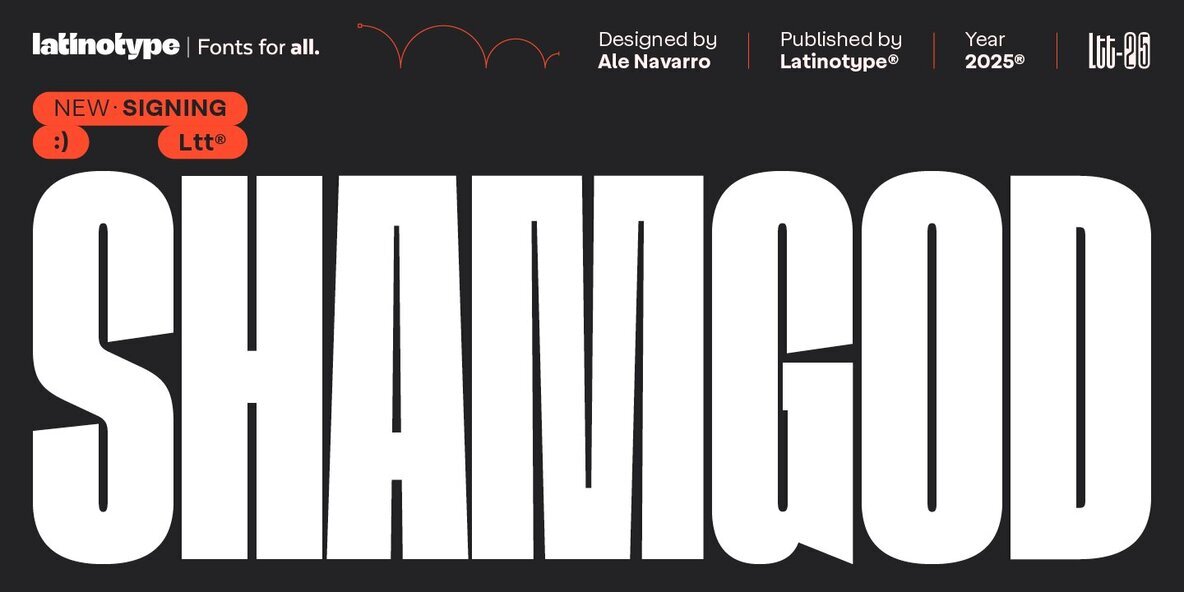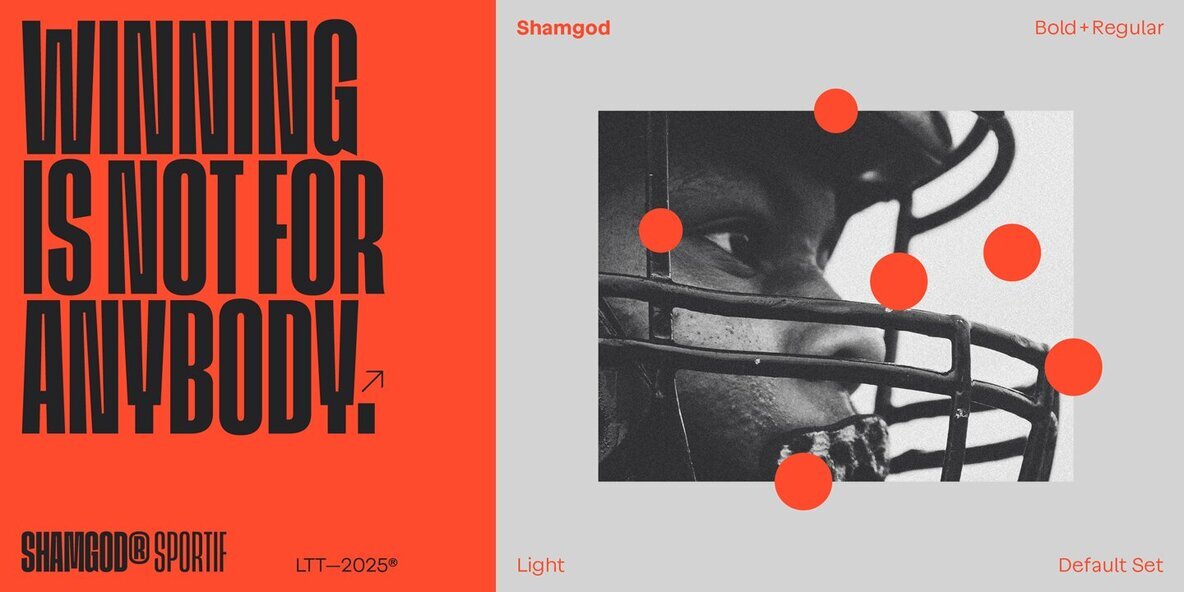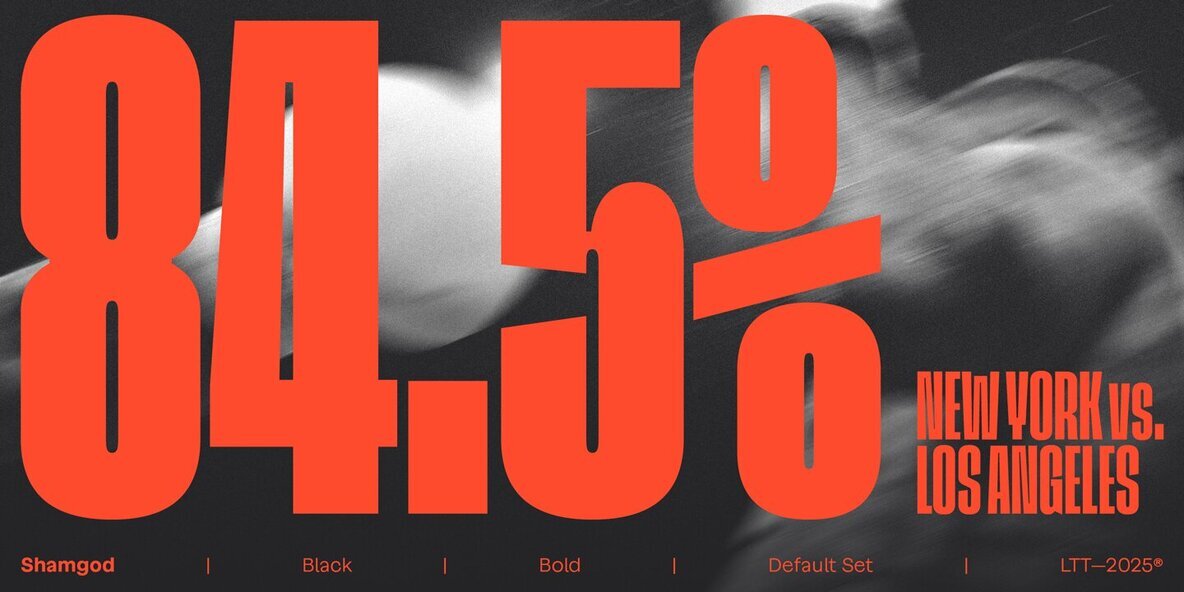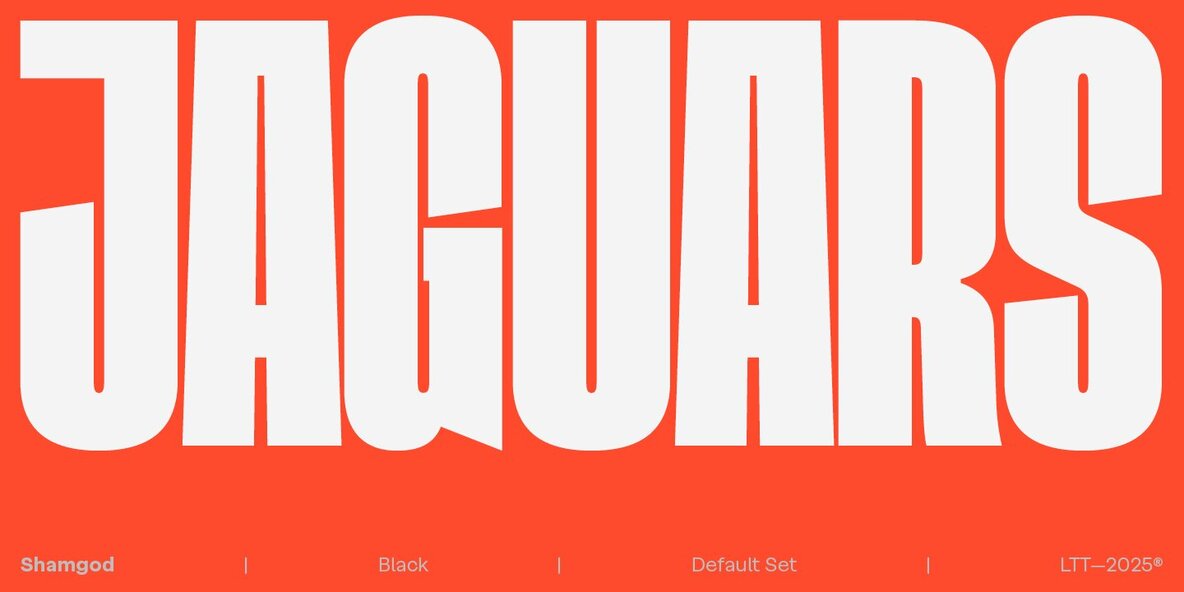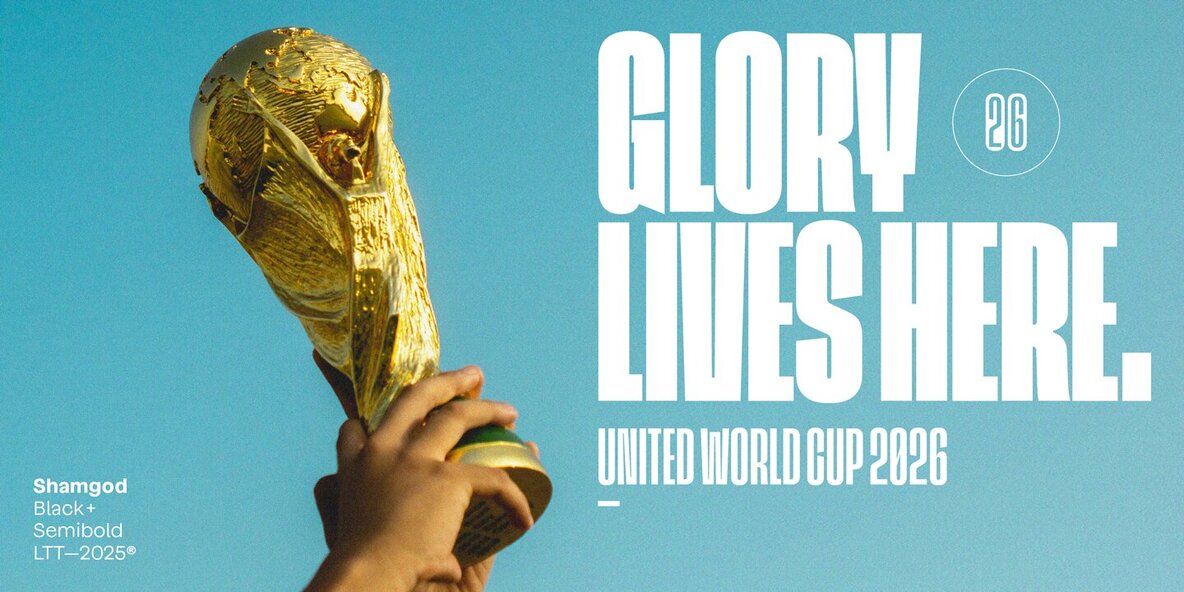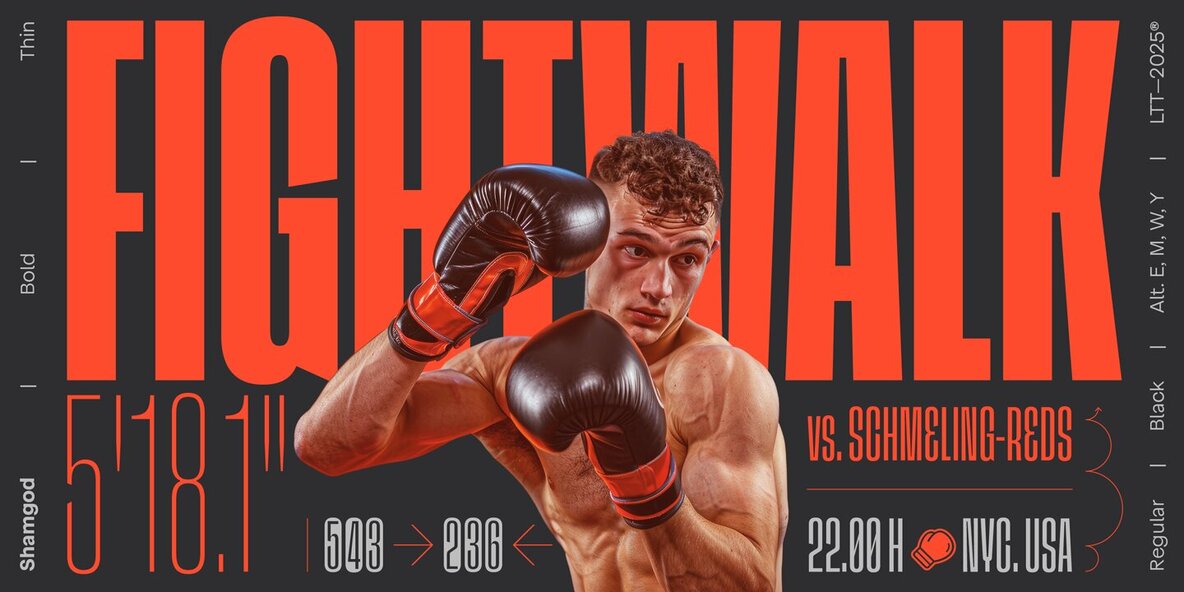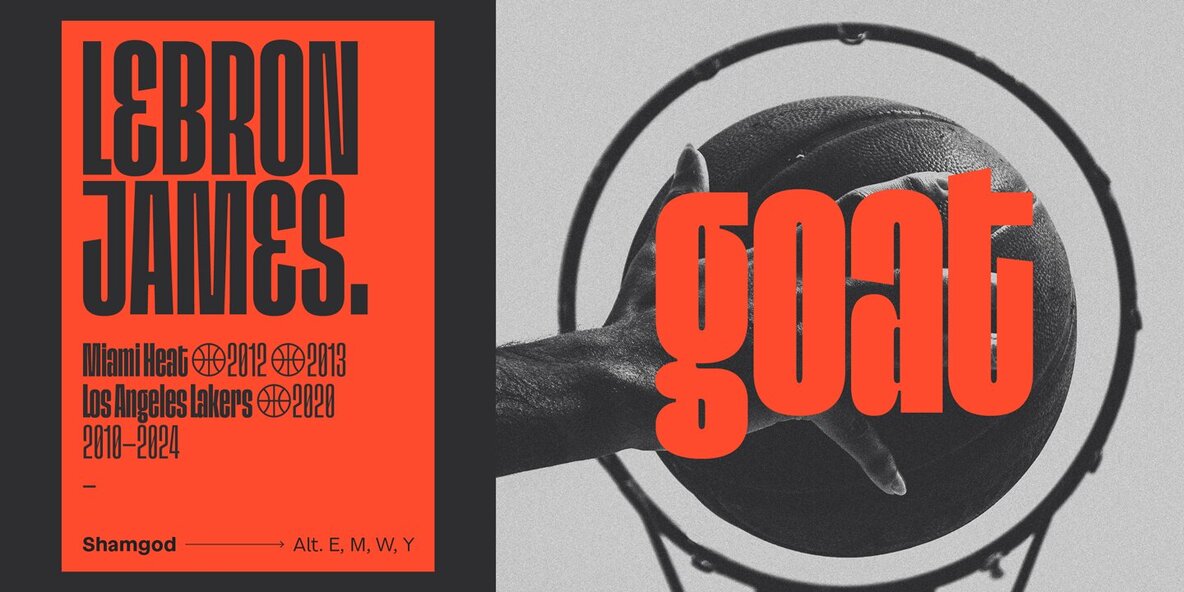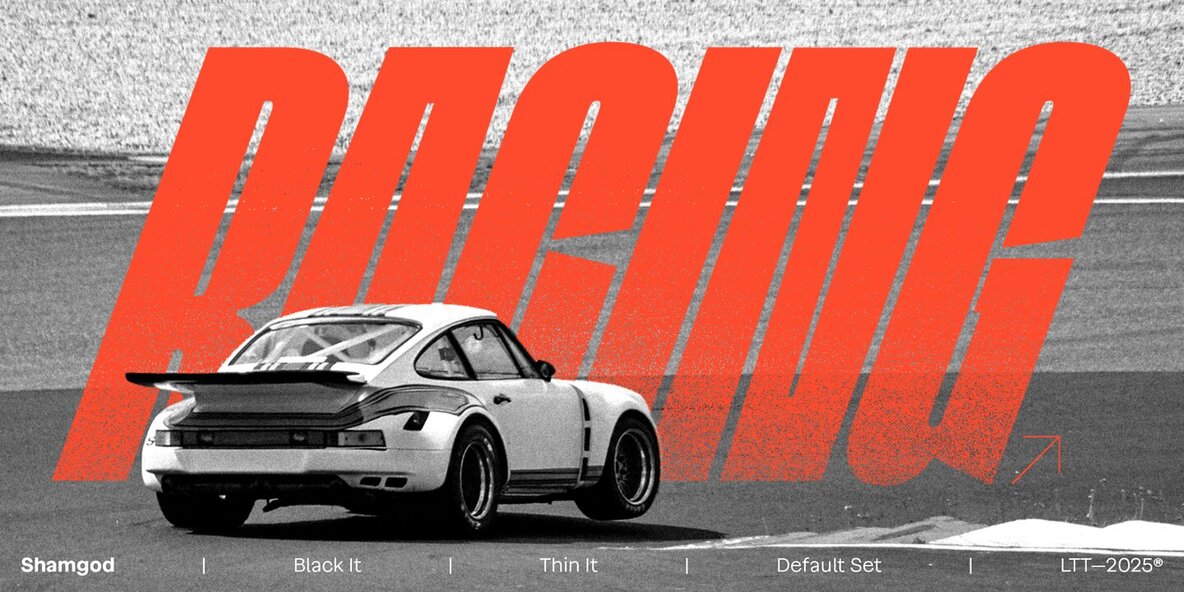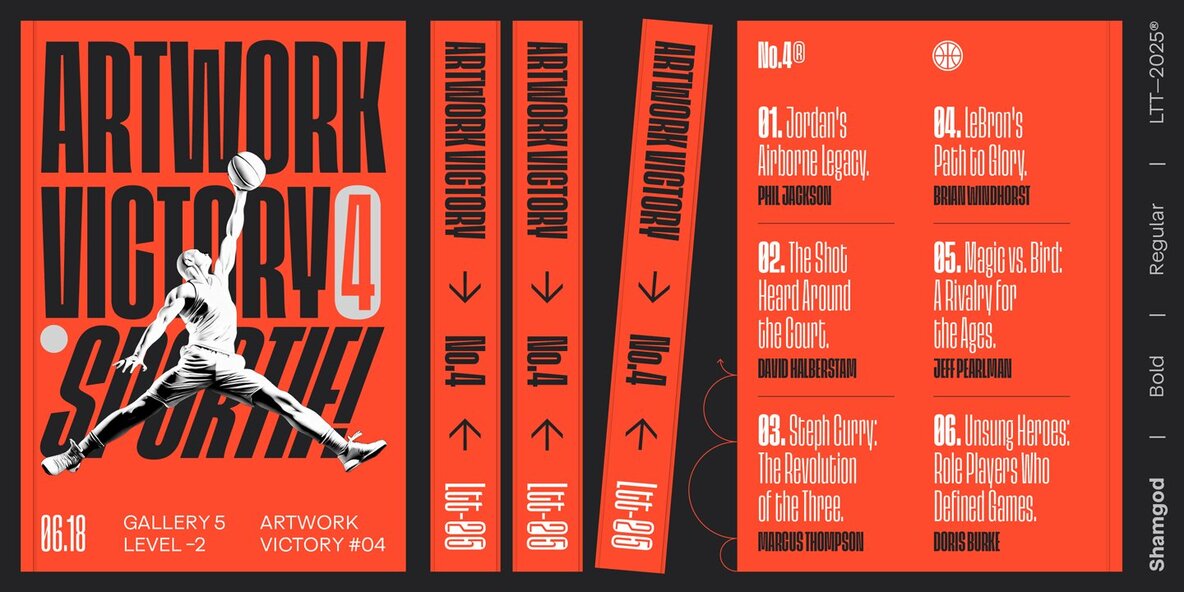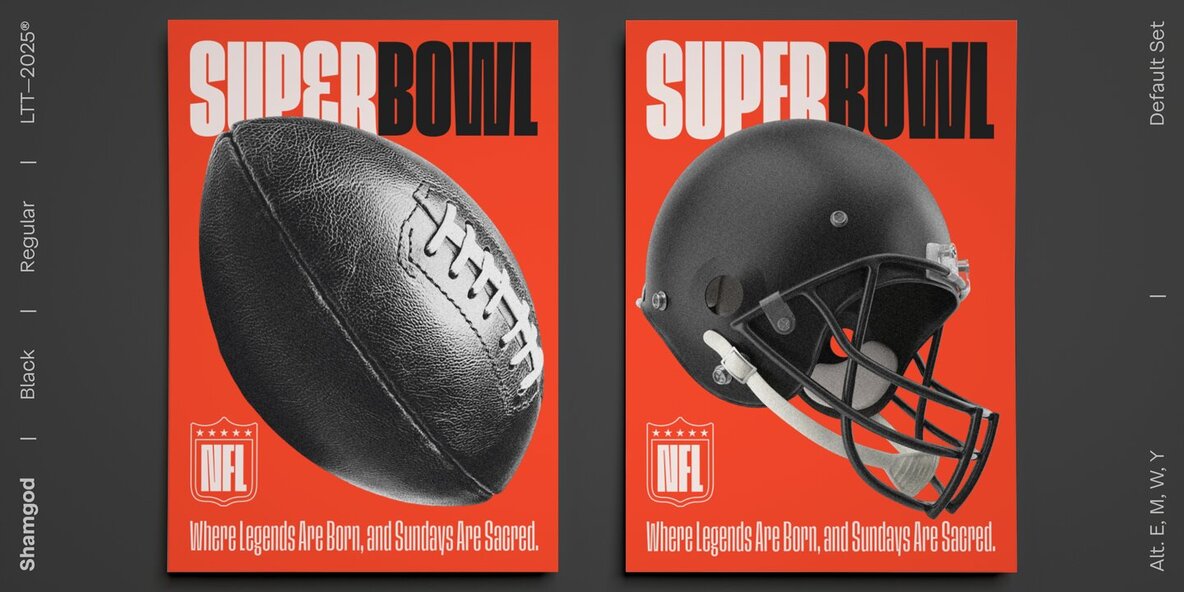
Shamgod Font
Shamgod is a bold, ultra-condensed typeface that captures the raw intensity of sports and the urban culture of the ’90s and 2000s. Its grotesque style, highlighted by sharp diagonal cuts and compact form, embodies speed and energy. This typeface is an ideal choice for eye-catching headlines, logos, and sports branding. Perfectly suited for streetwear, digital design, and modern branding, Shamgod brings a strong, dynamic presence to any project. Whether used in posters, brand identities, or editorial layouts, its striking visual impact makes it a powerful choice for those seeking a contemporary aesthetic.Shamgod: Bold Typeface Exuding Speed and Energy